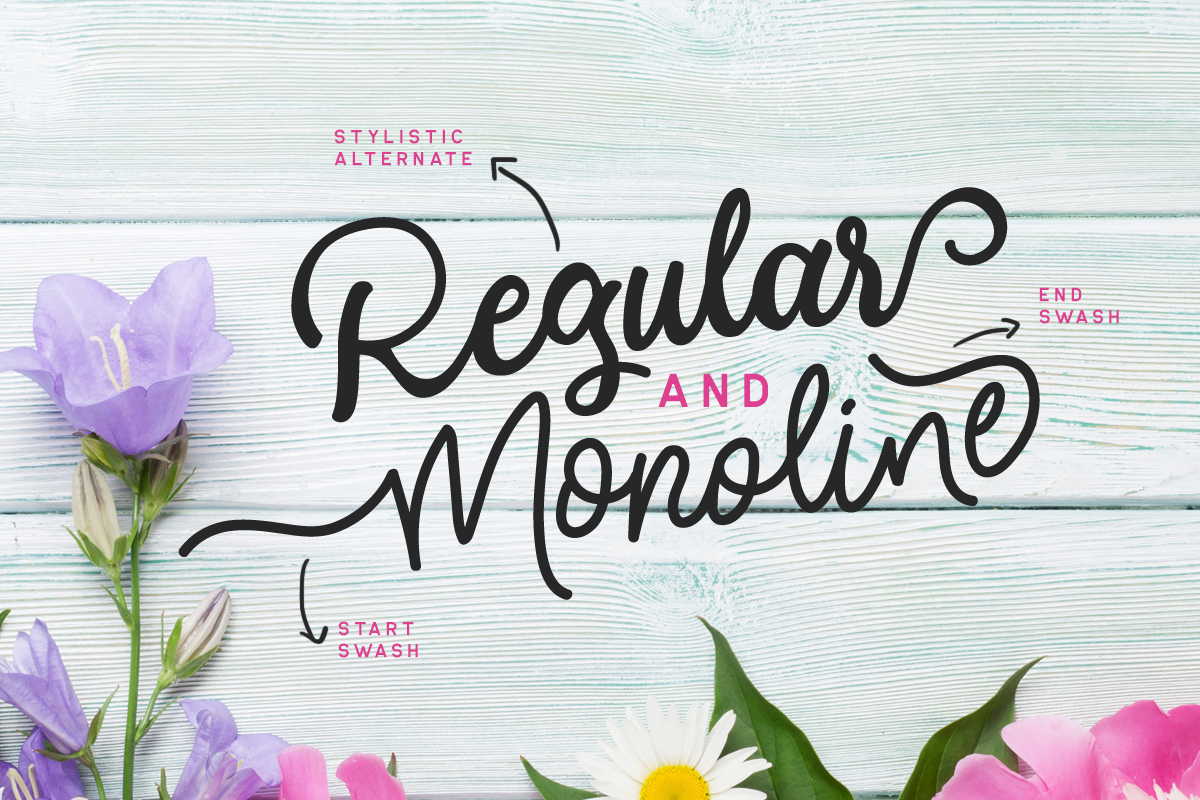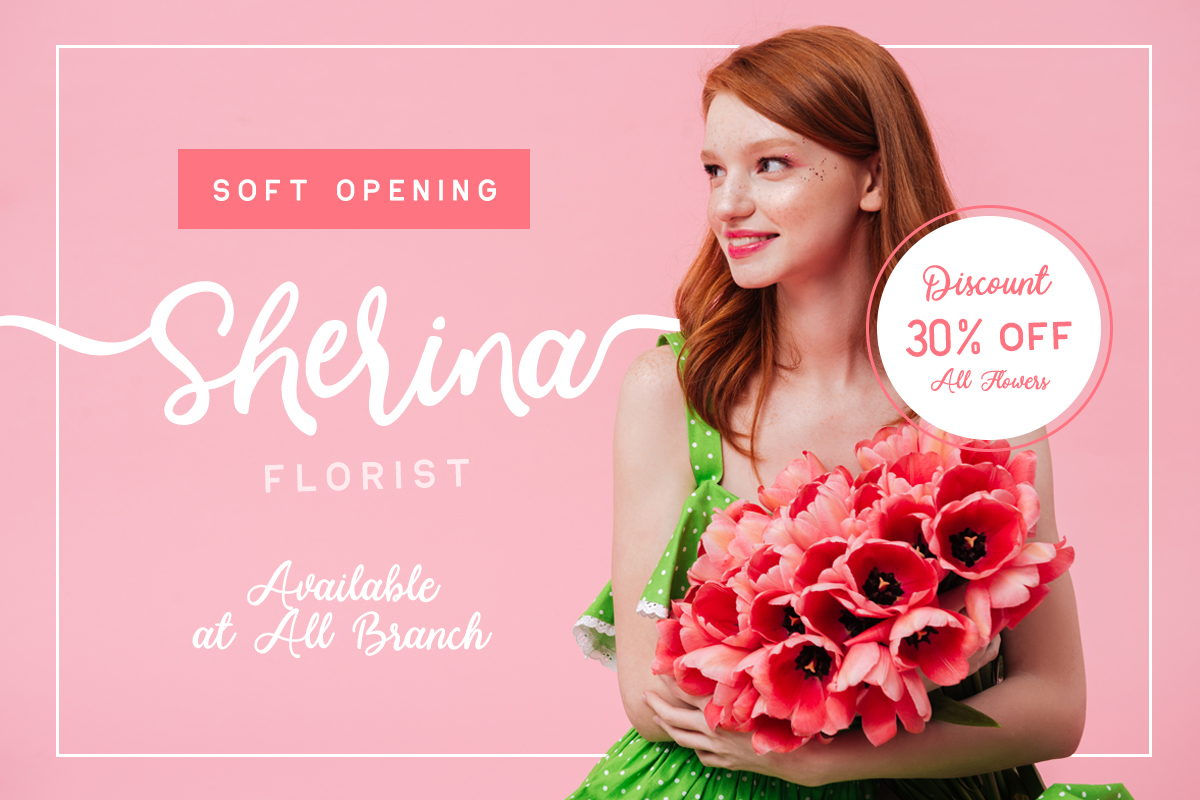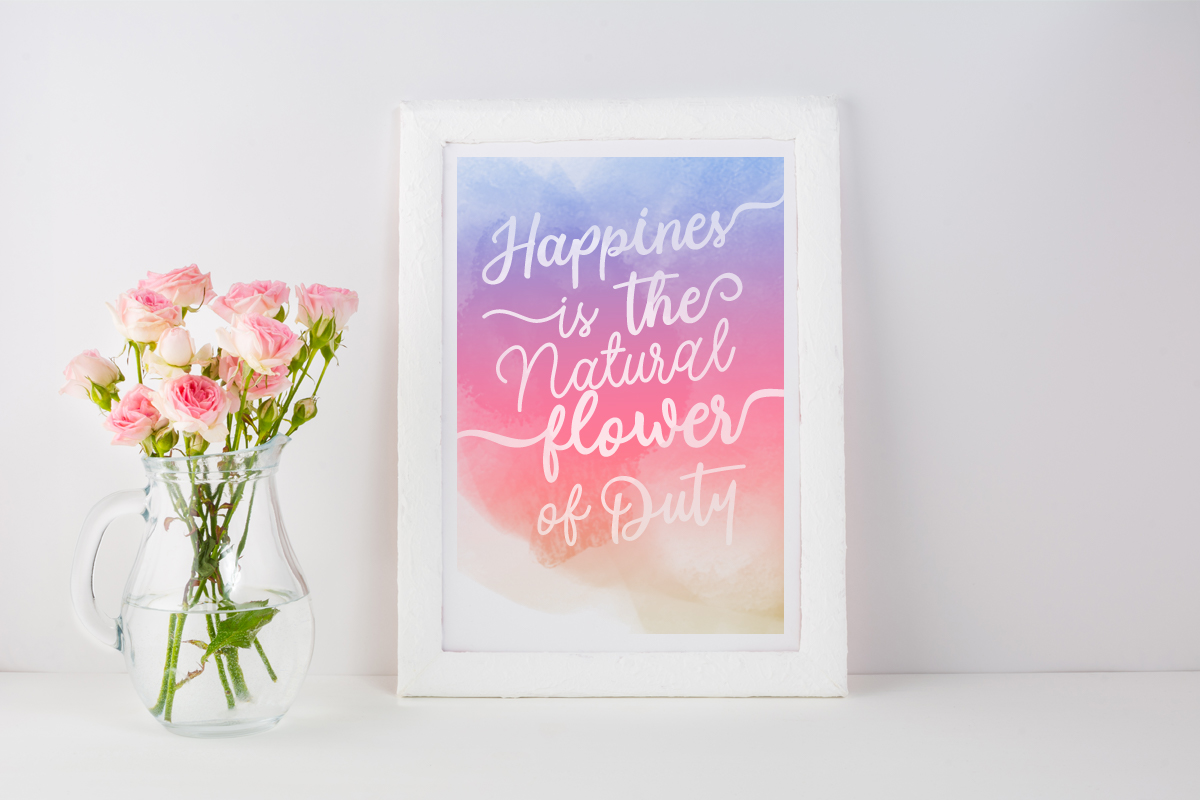
Modesta Script Free Font
Modesta Script Free Font has two types of style, monoline and regular. Perfect to be used for the project with a feminine & girly theme! You can play with the ligatures, stylistic alternate, swash, etc to create your own customized lettering. This font is also supported multi-language. This free typeface was designed by a talented Hendry Juanda. If you like it don’t forget to check out the full version.